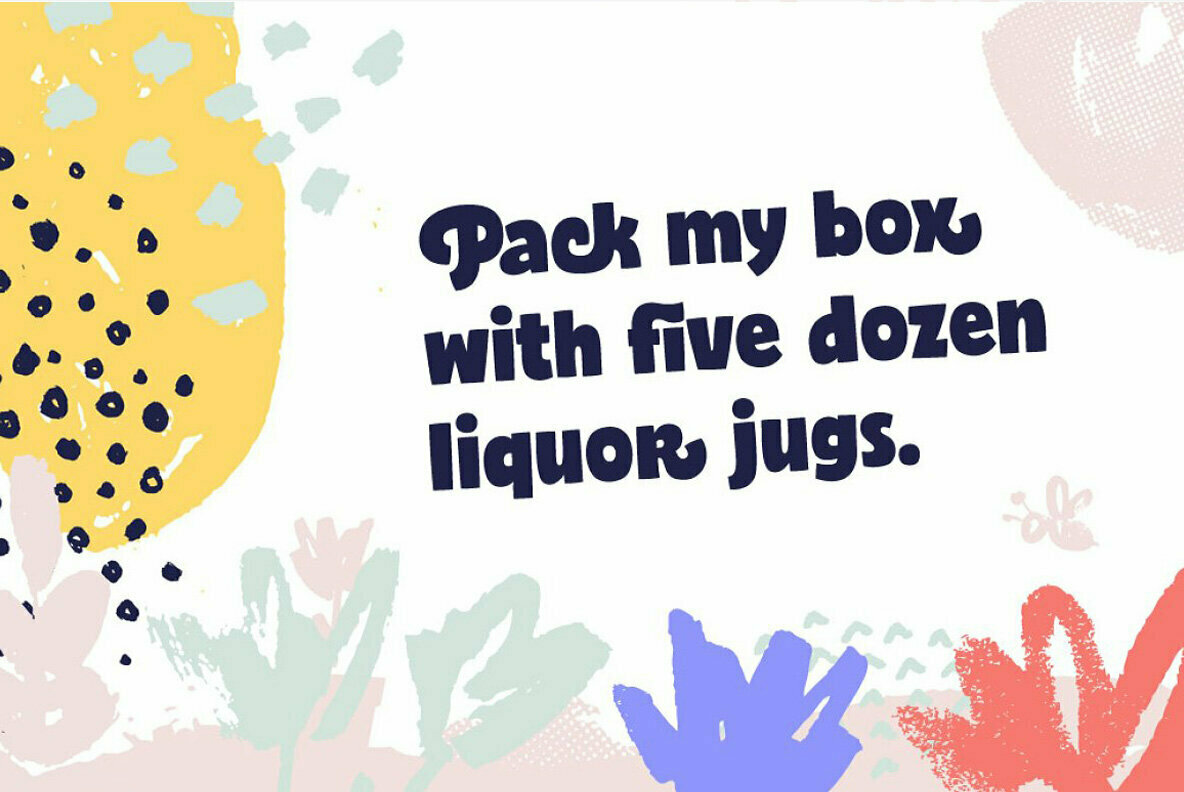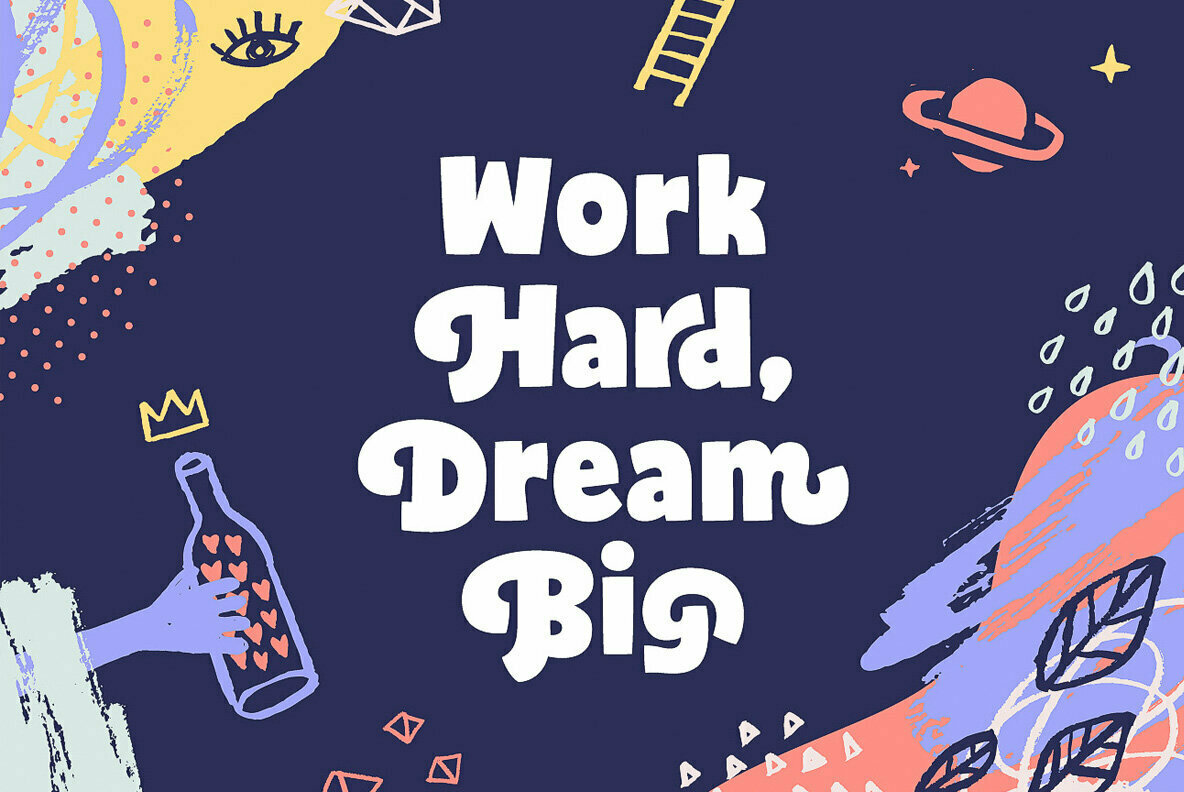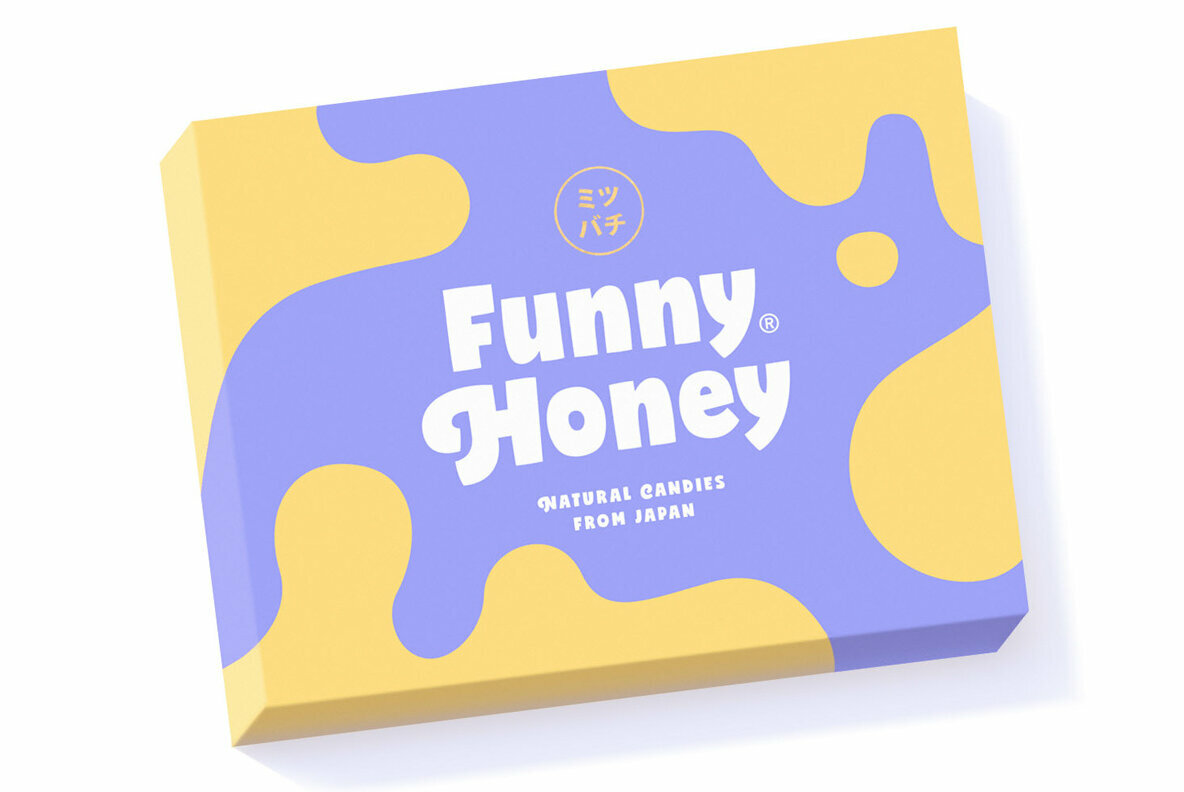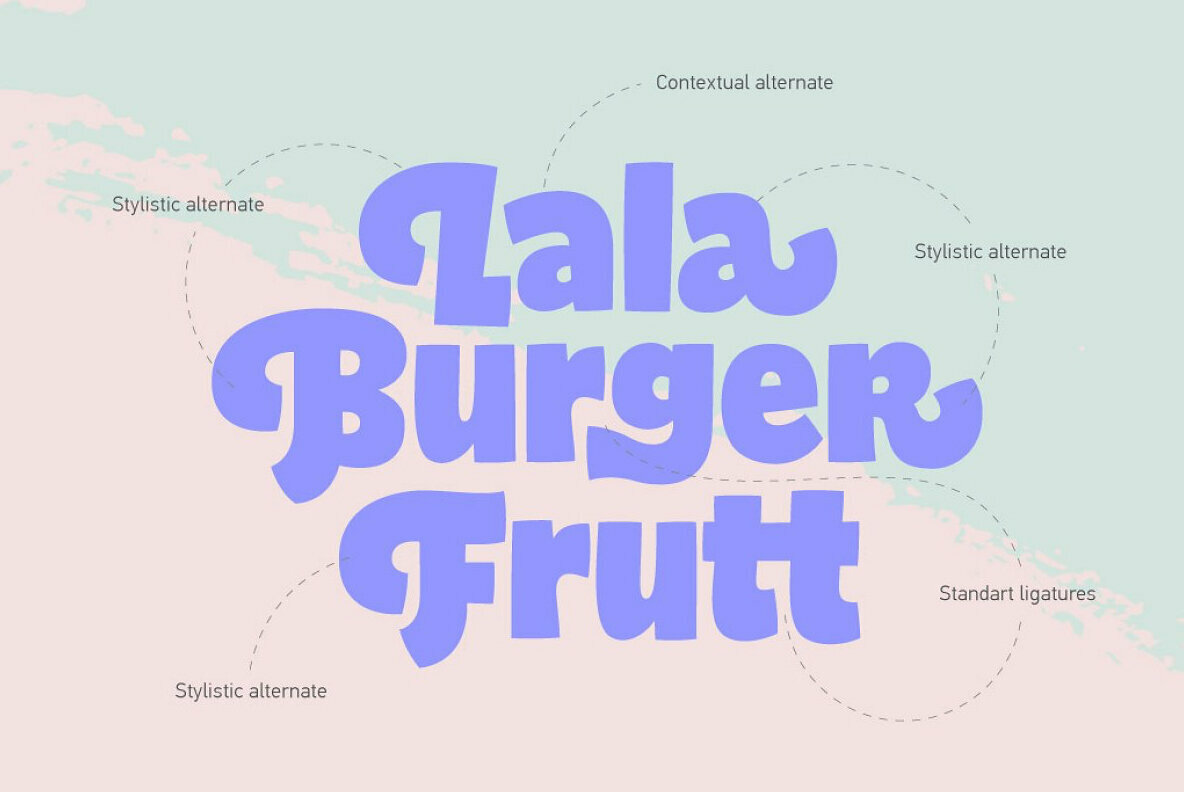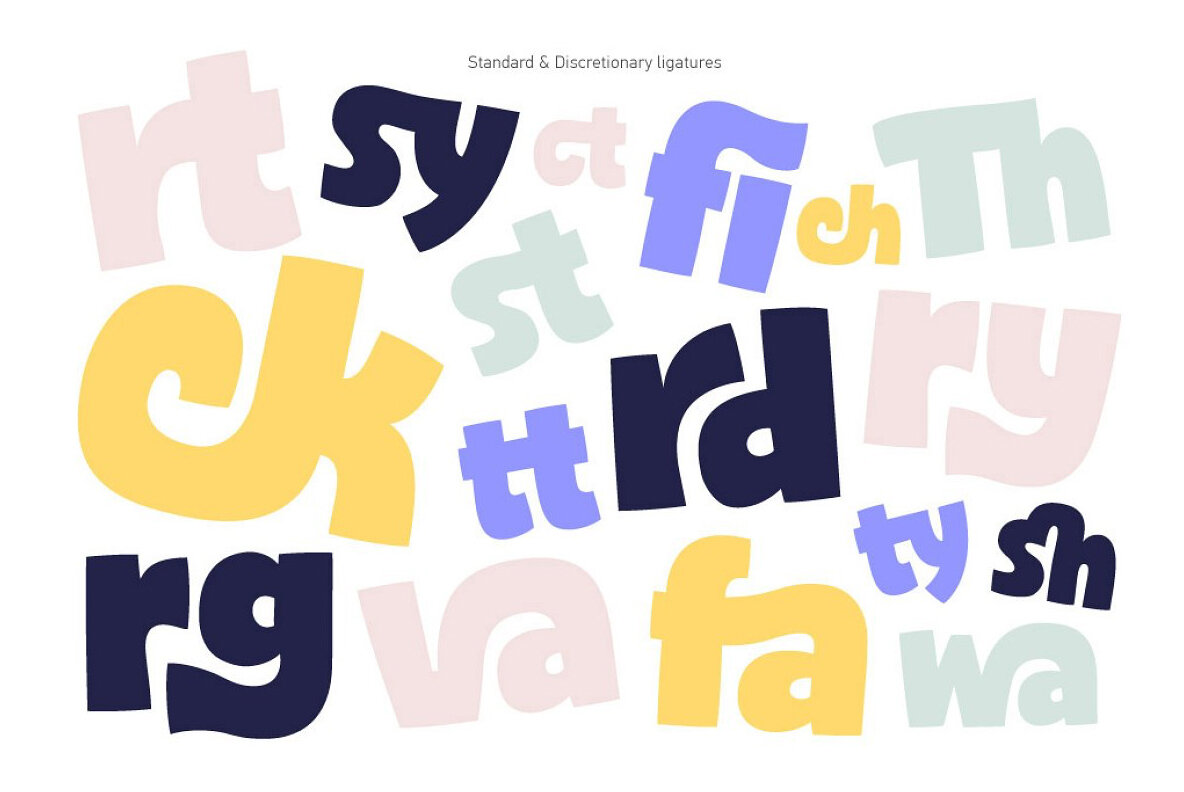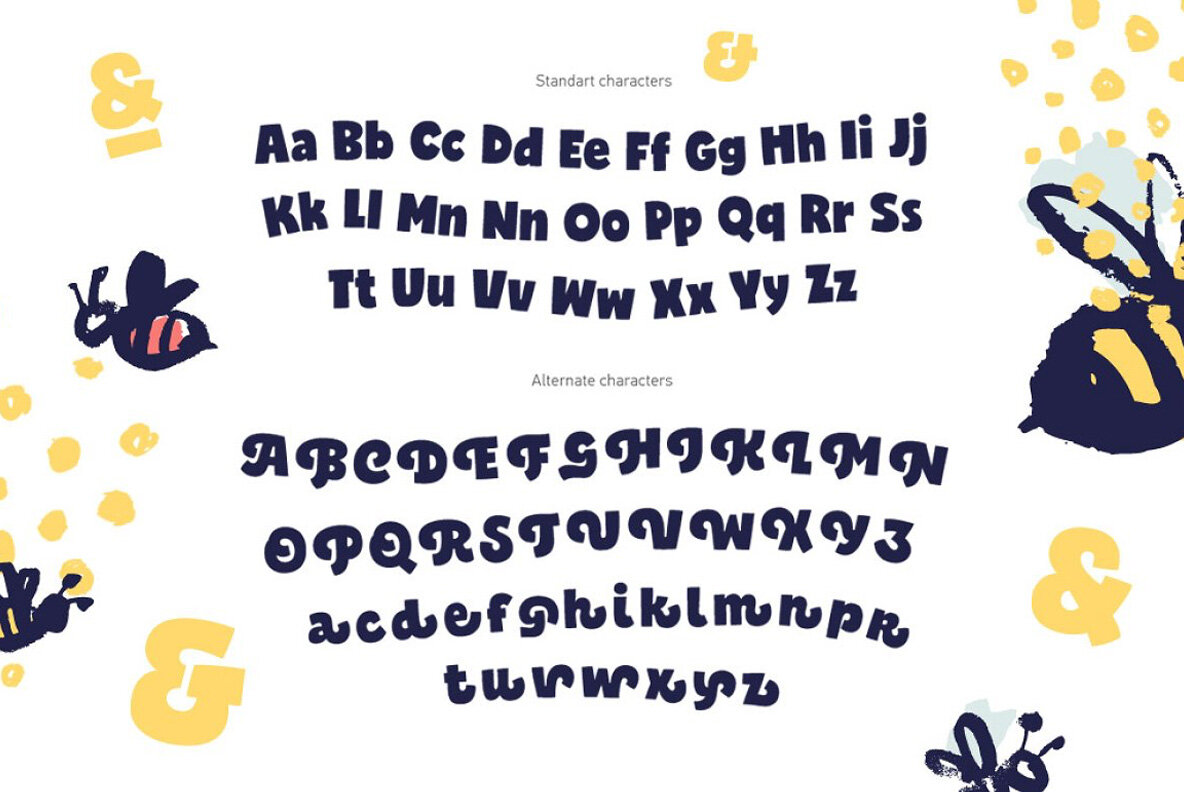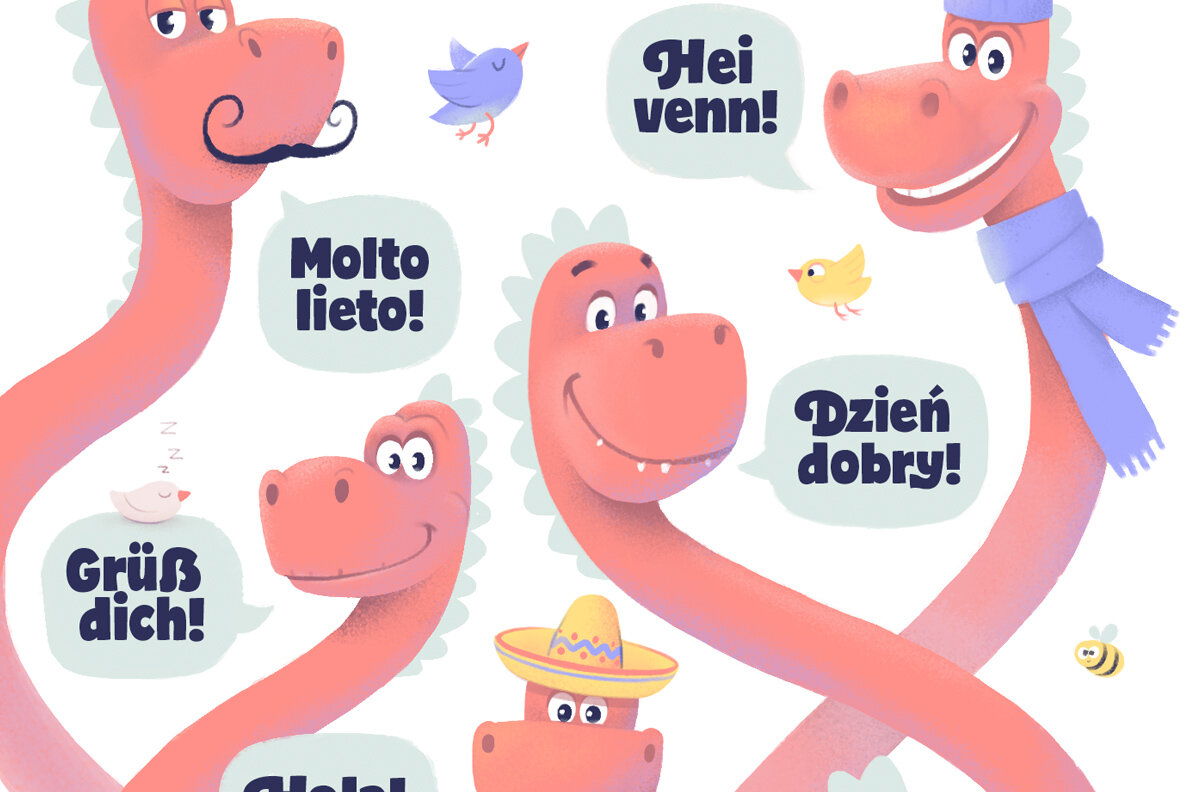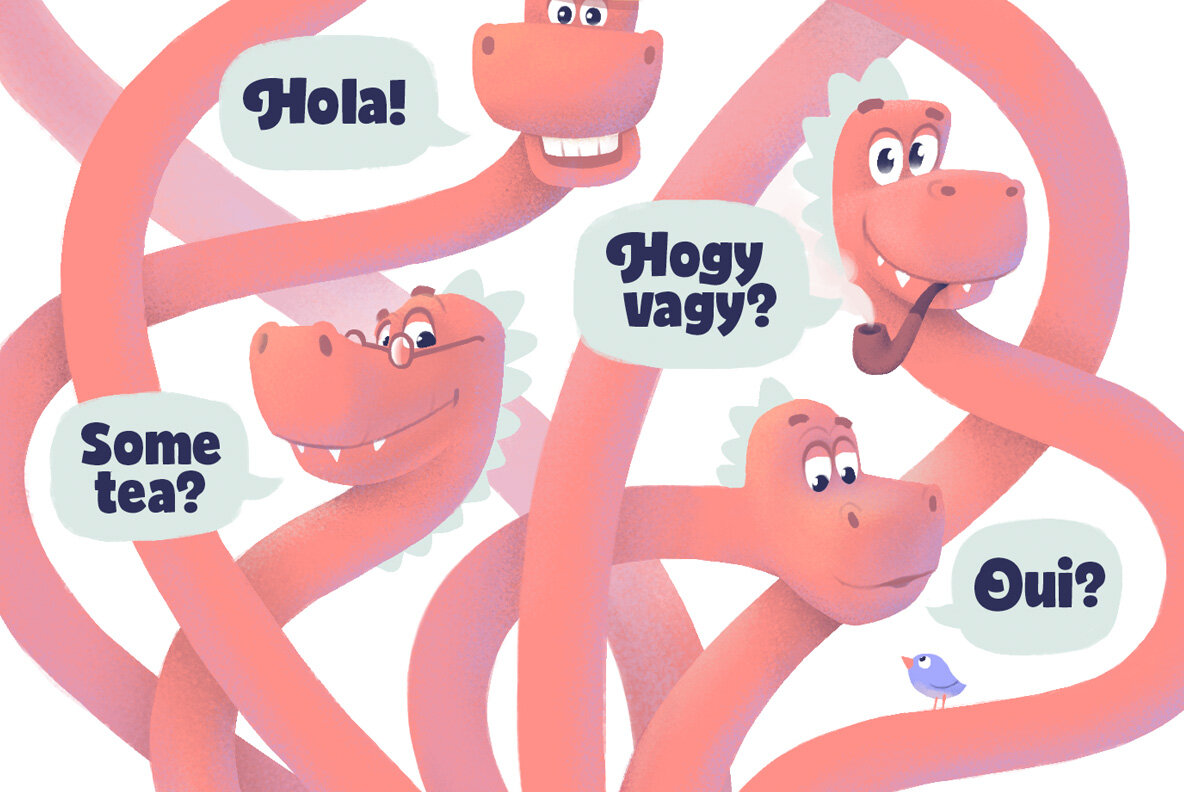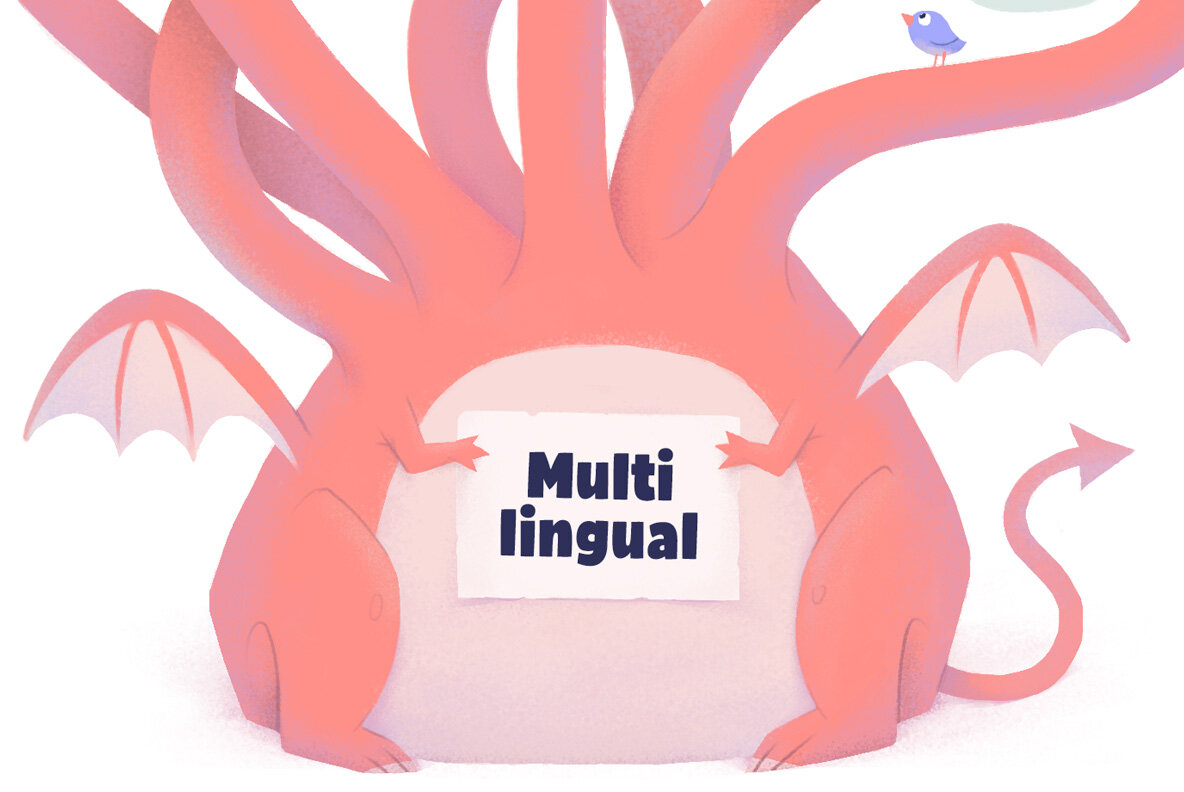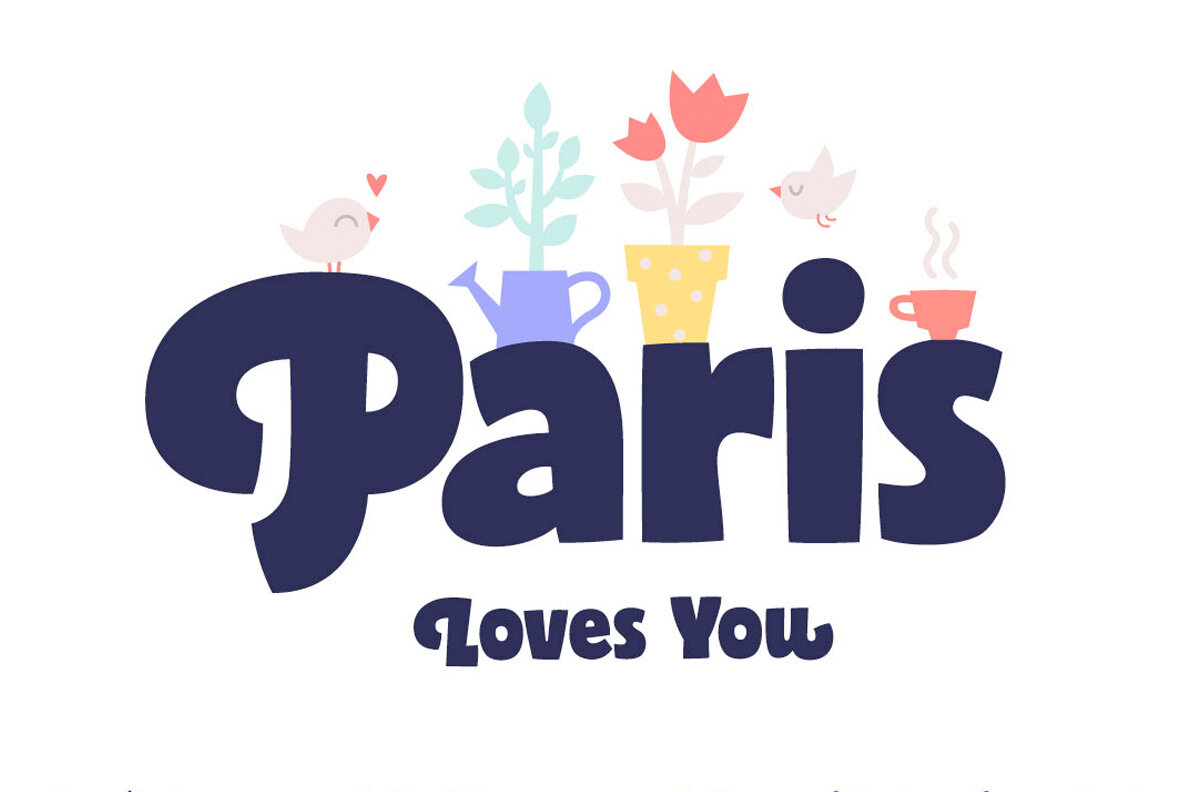
Bjola Font
Bjola
Bjola is the perfect font for any project where you want to add some fun and happiness. With its friendly looking letters, it'll make your designs come alive with a child-like simplicity that's both modern yet wise at once! You could use this typeface in children books or cards, anything really but don't be afraid if your creativity takes flight.
Bjola includes:
- Uppercase, lowercase, numbers, punctuations;
- Opentype features: Stylistic and Contextual alternates, Standard and Discretionary ligatures.
Multilingual support (Western European characters).
Languages: Danish, Dutch, English, Estonian, Faroese, Finnish, French, German, Hungarian, Icelandic, Italian, Norwegian, Polish, Portuguese, Slovene, Spanish, Swedish, Turkish.